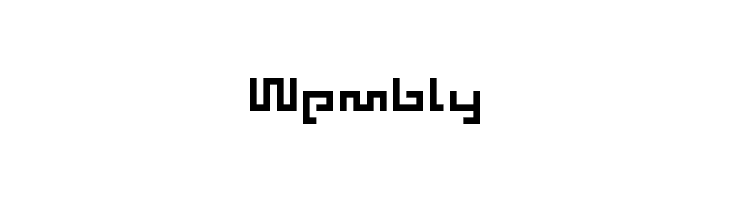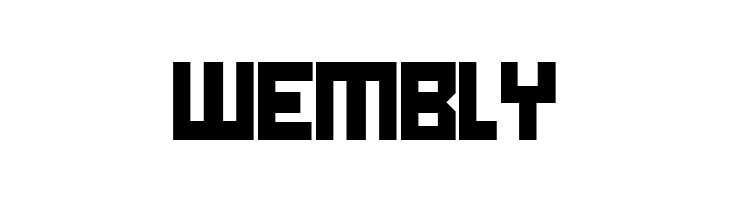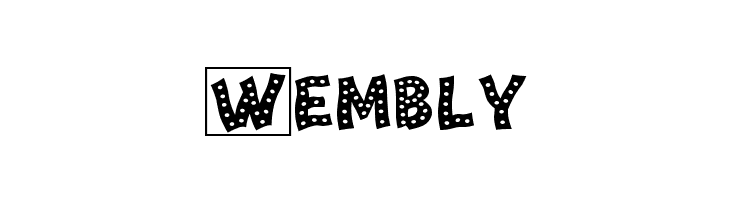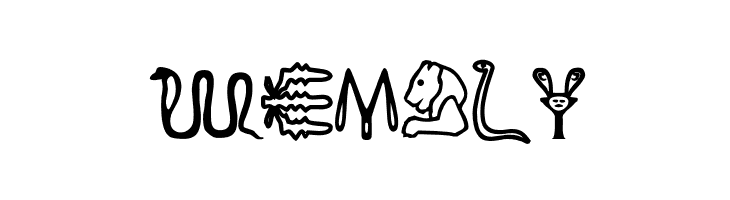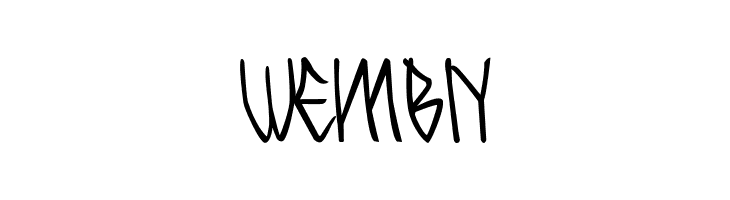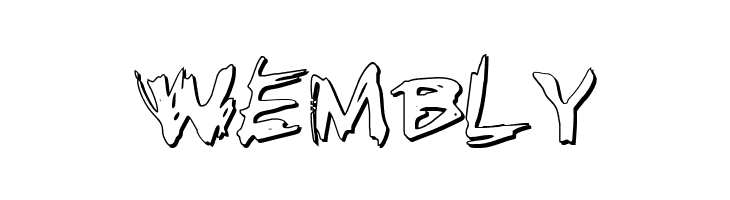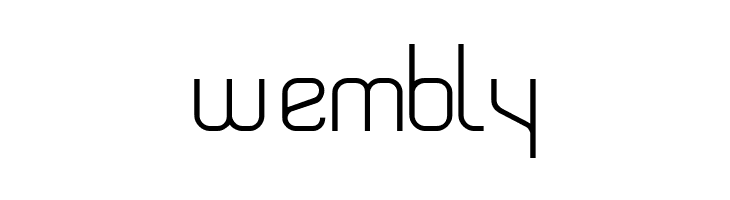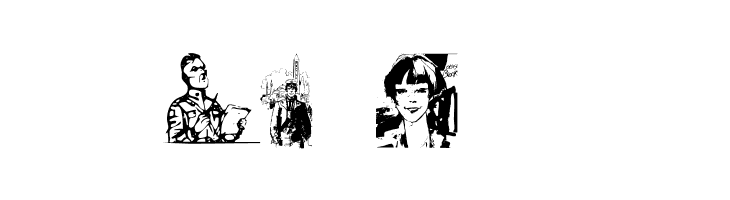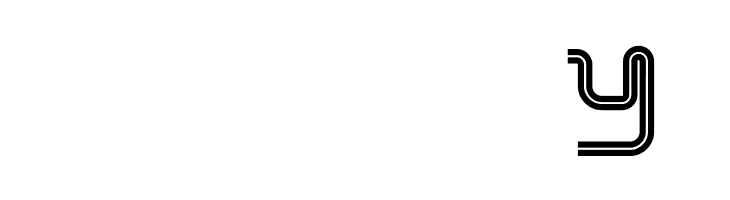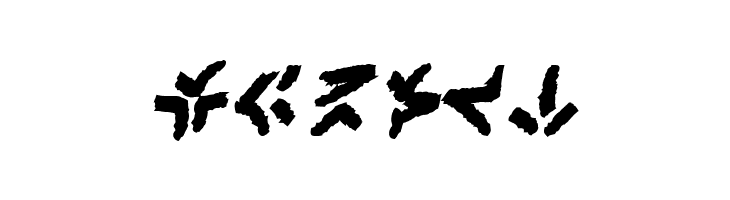
Bold, graphic, street-art inspired decorative font.
A playful, polka-dotted font with bold, irregular characters.
A bold, playful font with a hand-drawn, cartoonish style and boxed uppercase letters.
A bold, graffiti-inspired font with dynamic and edgy characters.
A bold, graffiti-inspired font with an edgy outline style.
A pixelated, retro-style font with a geometric, digital appearance.
A bold, tribal-inspired font with angular, geometric shapes.
A bold, tribal-inspired font with rugged, angular strokes and a hand-drawn aesthetic.
A bold, glitch-inspired font with a digital, futuristic style.
Playful, vintage cartoon-inspired font with bold, rounded shapes.
Nature-inspired dingbat font with botanical silhouettes.
A retro dot matrix font inspired by vintage pinball displays.
A pixelated, digital-style font with a retro, tech-inspired aesthetic.
A bold, graffiti-inspired font with sharp, angular lines and dynamic style.
A bold, futuristic font with geometric outlines and a tech-inspired aesthetic.
A digital, segmented font inspired by LED displays, featuring bold, geometric characters.
A vintage, typewriter-style font with a distressed, underscored design.